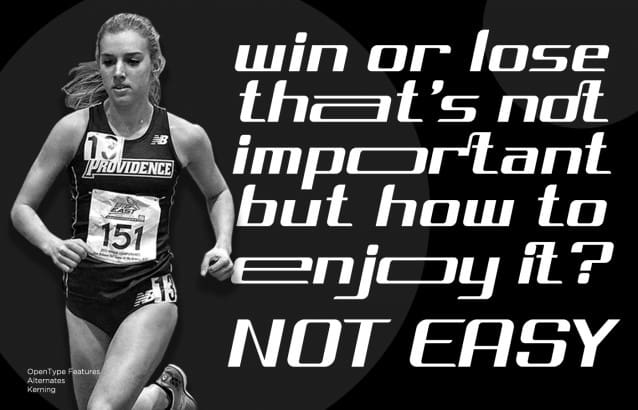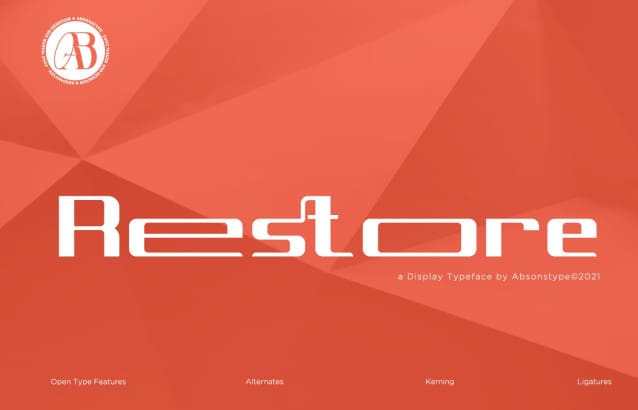
Rostero Font
Rostero Font, is the sporty sans style with uppercase and lowercase looks and feel nice balanced. Provide alternates and ligatures font in variant style make the design letter looks nice. Honestly it works perfectly for headlines, logos, posters, packaging, T-shirts and much more.